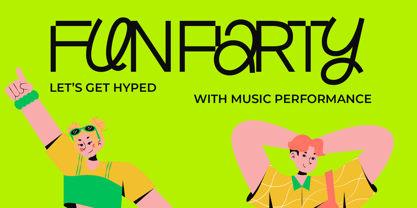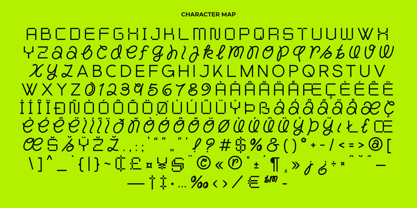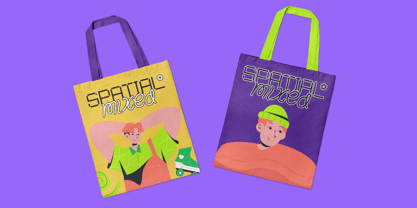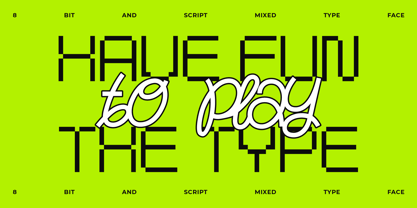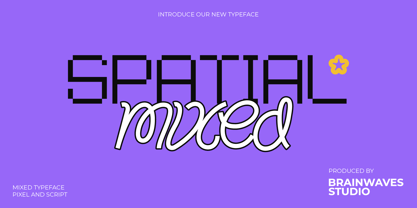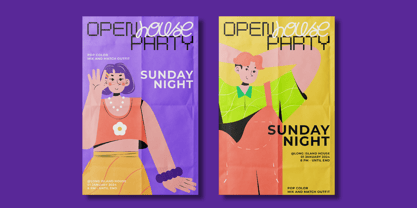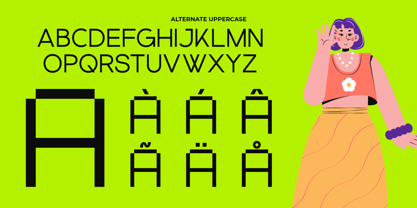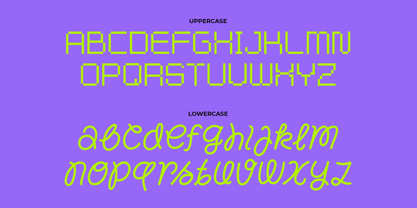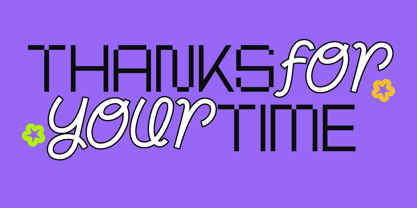
Spatial Mixed
by Brainwaves Studio
The Spatial Mixed Font Family was designed by Lucky Fitriadi and published by Brainwaves Studio. Spatial Mixed contains 2 styles and family package options.
A revolutionary typeface designed for the era of classic Nintendo bitmap games and other retro pixel digital aesthetics. Combining the nostalgic charm of 8-bit retro style with the smooth and flexible curves of modern line script fonts, this unique display font bridges the gap between digital nostalgia and gentle curves.
• Uppercase Letters: A strong, geometric, and versatile 8-bit font for sharp futuristic appeal.
• Lowercase Letters: A script font with soft cursive strokes that add the charm of handwritten contrast.
• Alternative Styles: Expand your creativity with unique variations to suit every creative idea.
Perfect for branding, posters, album covers, and more, Spatial Mixed invites you to explore limitless design possibilities.
Transform your projects with the bold blend of retro bitmap vibes and creative innovation that only Spatial Mixed can offer. Create uniquely—create with Spatial.
Designers: Lucky Fitriadi
Publisher: Brainwaves Studio
Foundry: Brainwaves Studio
Design Owner: Brainwaves Studio